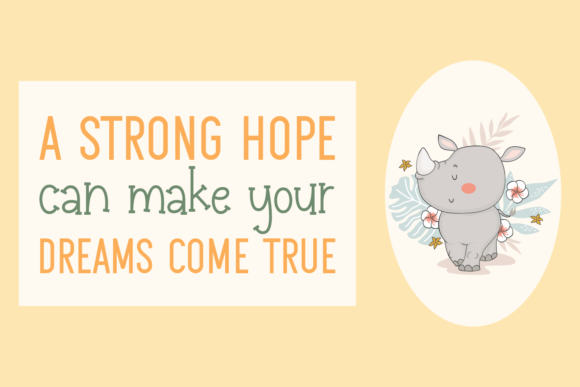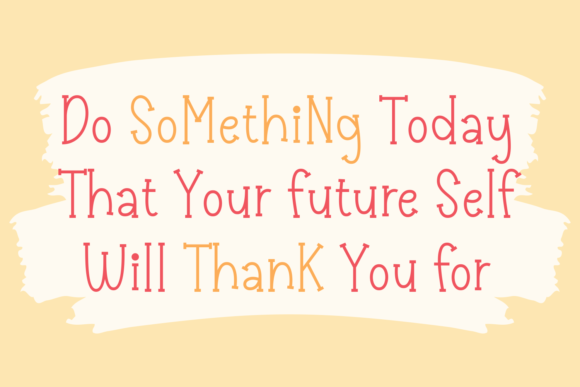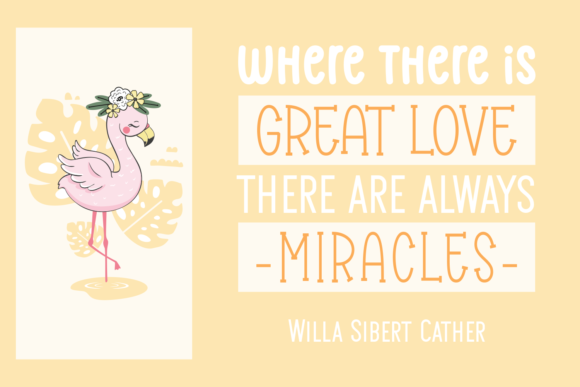
Introduction to January Many Font
January Many is a playful and cute display font.
Whether youโ€™re using it for crafts, digital design, presentations, or making greeting cards, this font has the potential to become your favorite go-to font, no matter the occasion .
Key Features of January Many Font
Why Choose January Many Font?
January Many Font offers exceptional quality and versatility, making it a valuable addition to your design toolkit. Whether you’re creating for personal projects or commercial use, January Many Font delivers professional results.